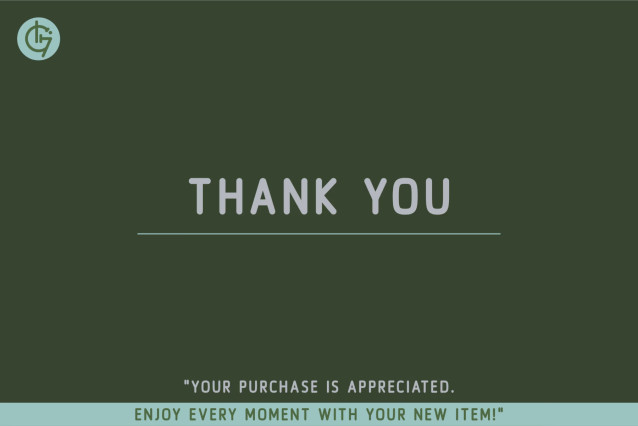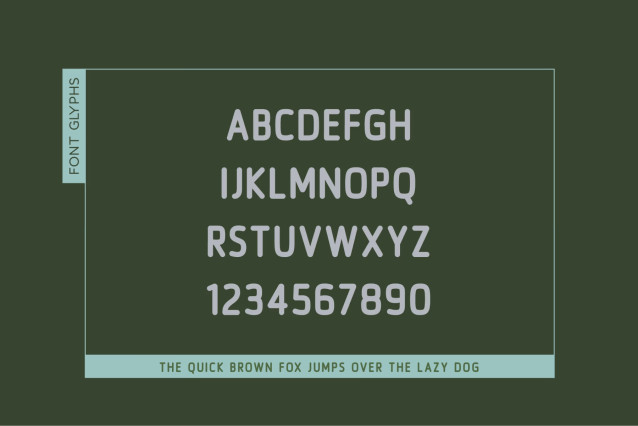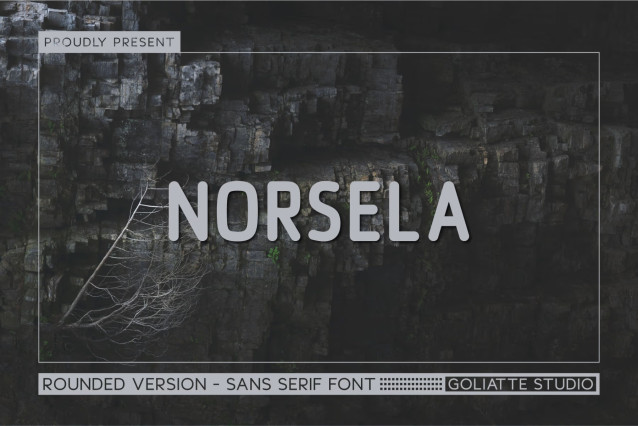
Norsela Font
Capture cool Nordic simplicity, minimalist outdoor ruggedness, and smooth modern geometry with Norsela! This rounded sans-serif font features clean medium-weight stems, gently softened corners, and open, breathable counters. It offers a calm, understated aesthetic that feels grounded and natural.
Ideal for adventure apparel, outdoor brand identities, travel photography watermarks, editorial headers, packaging design, and minimal signage!